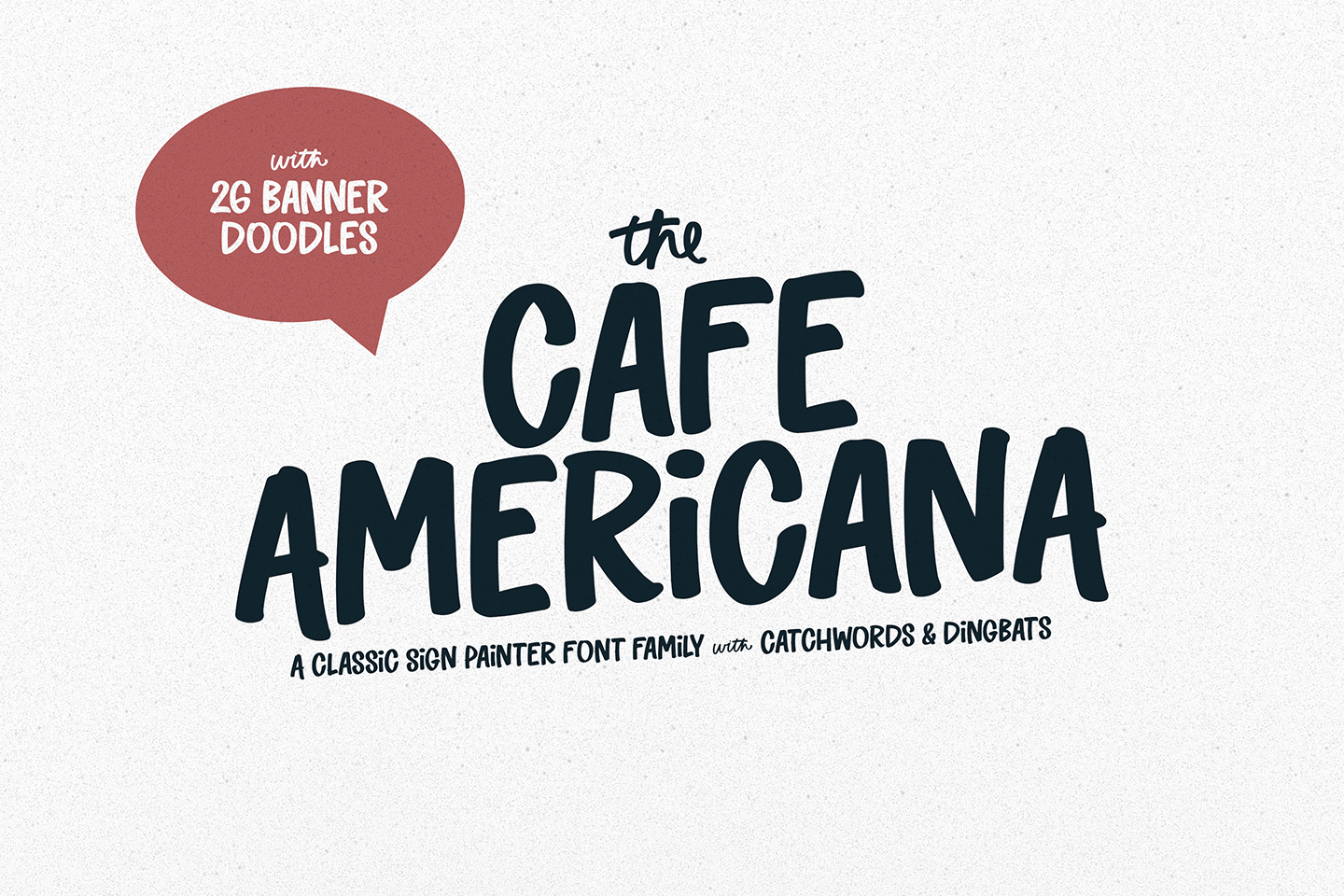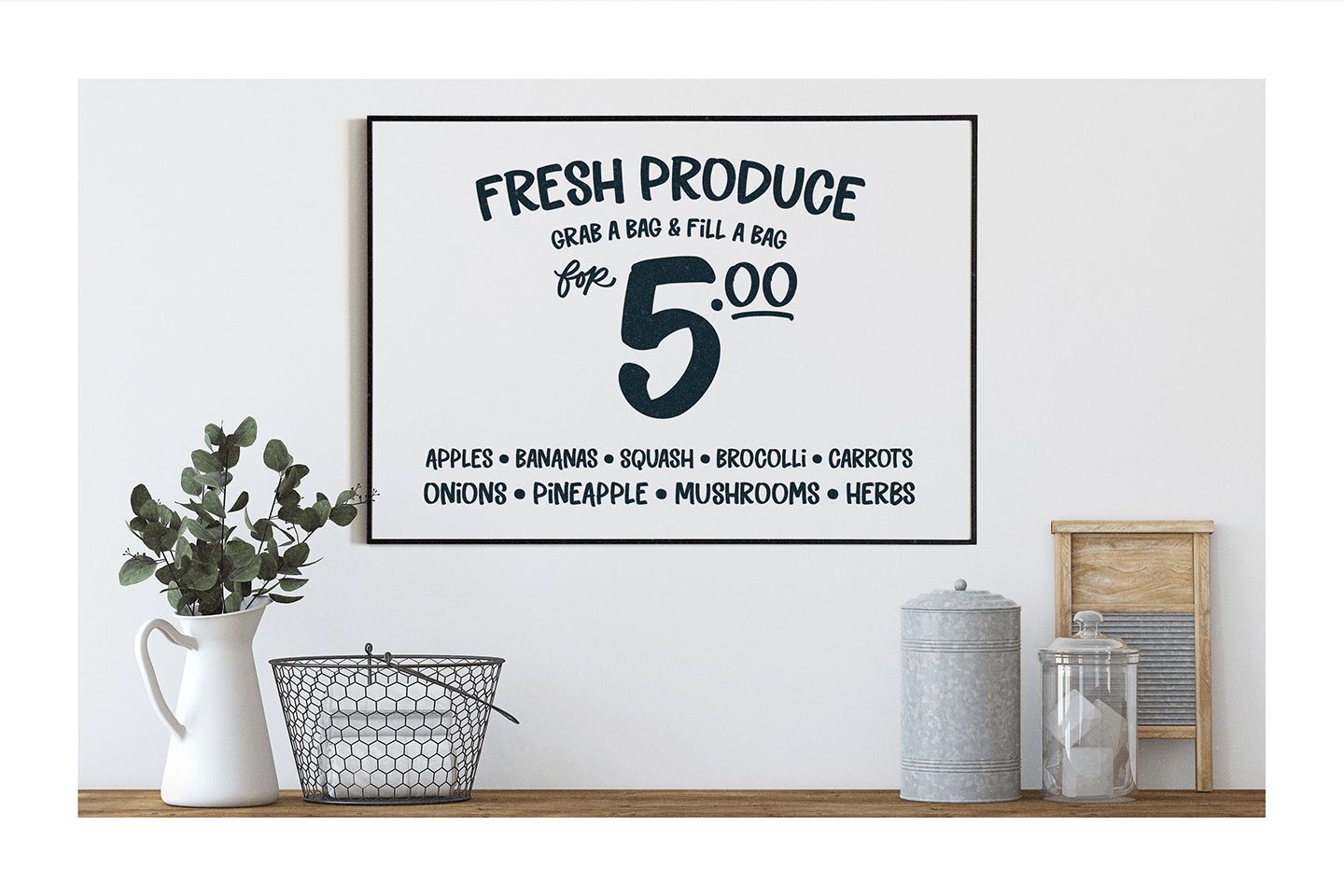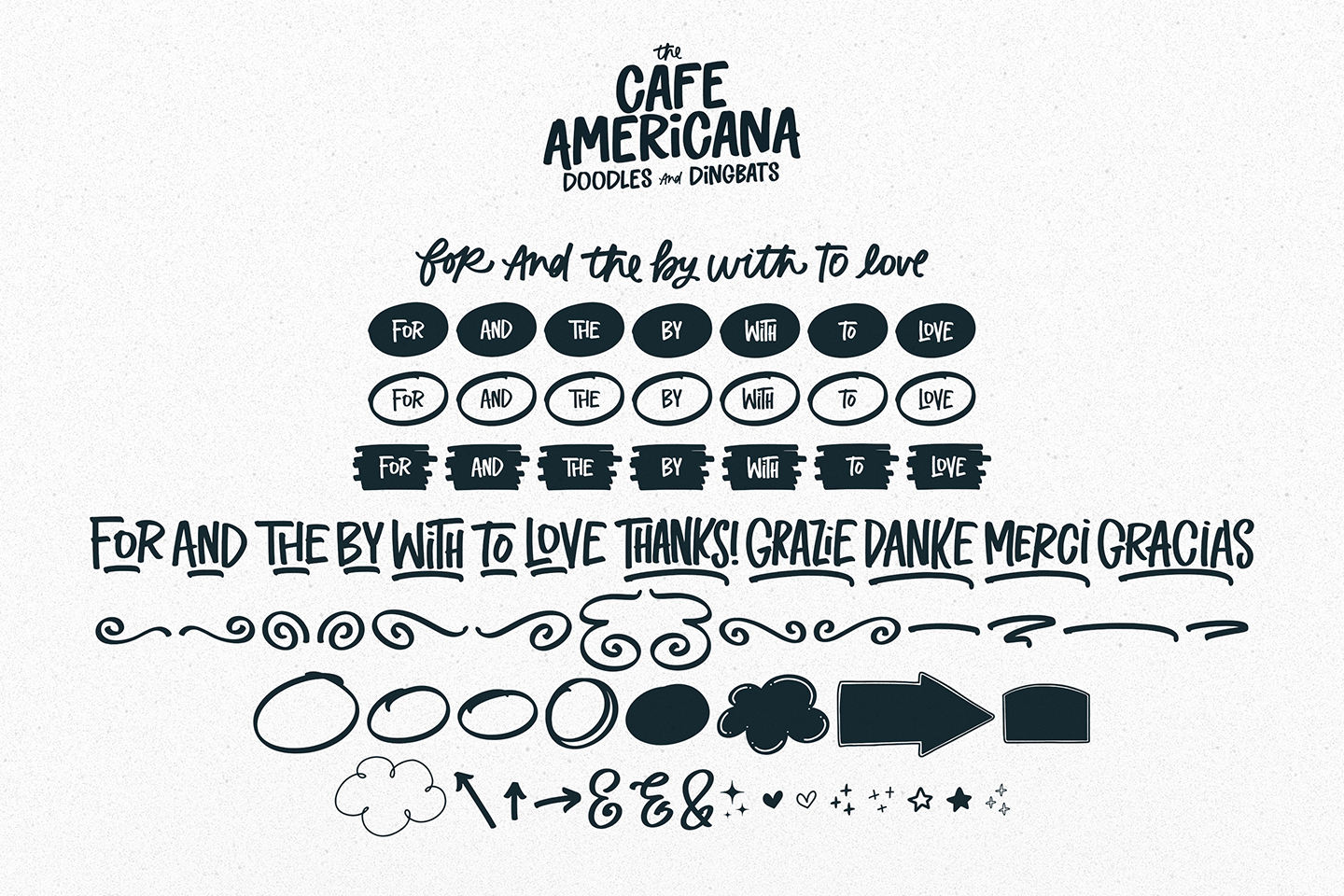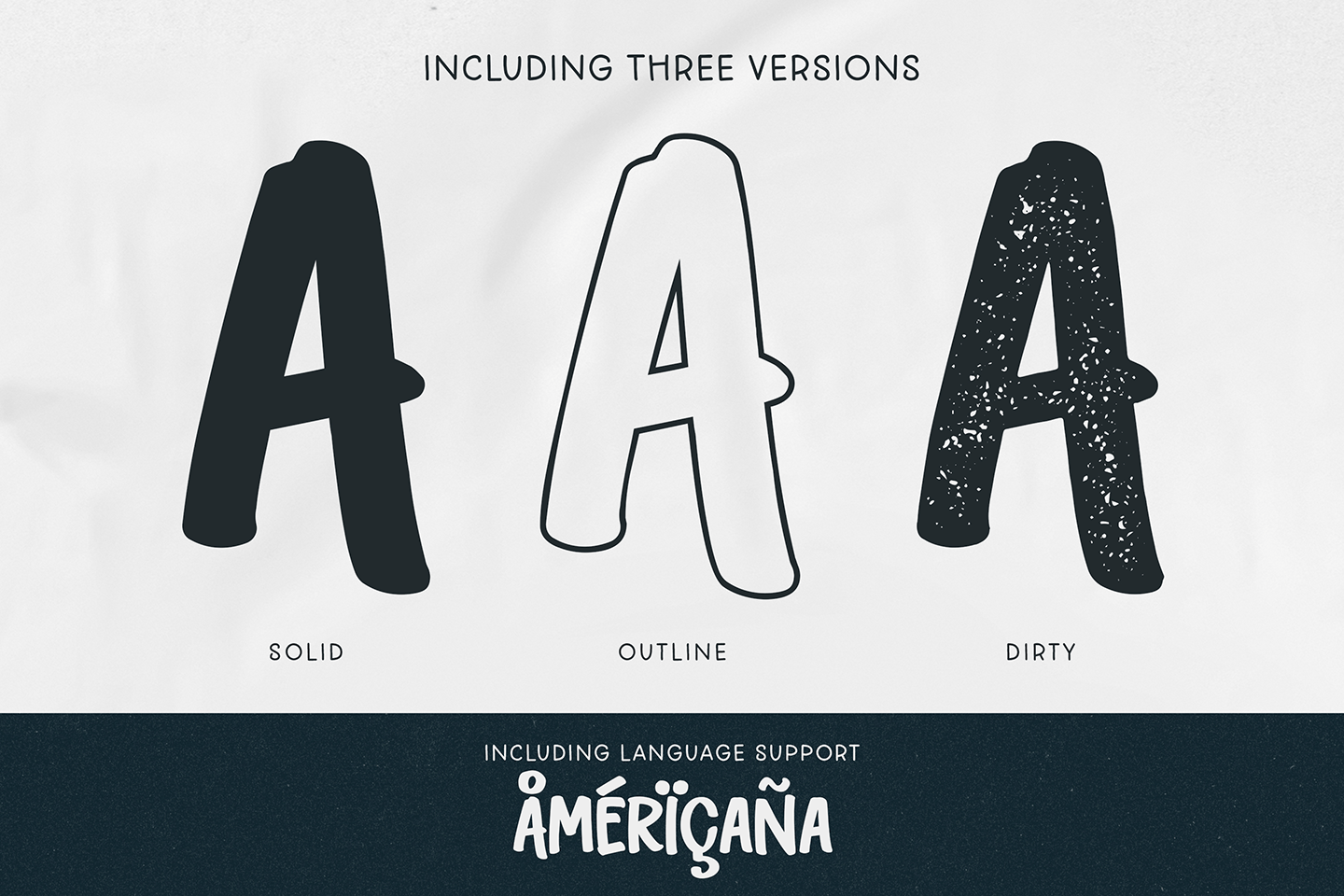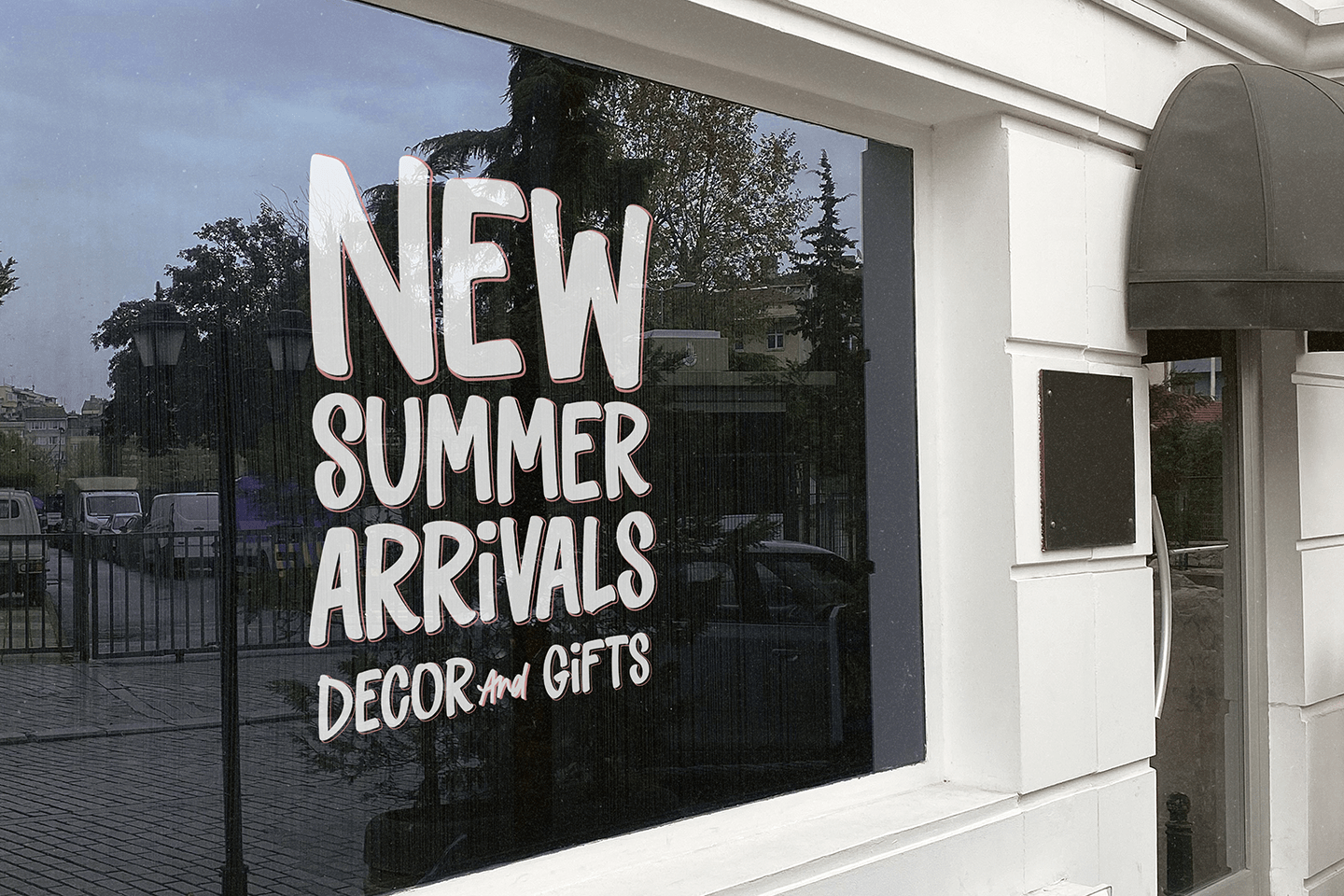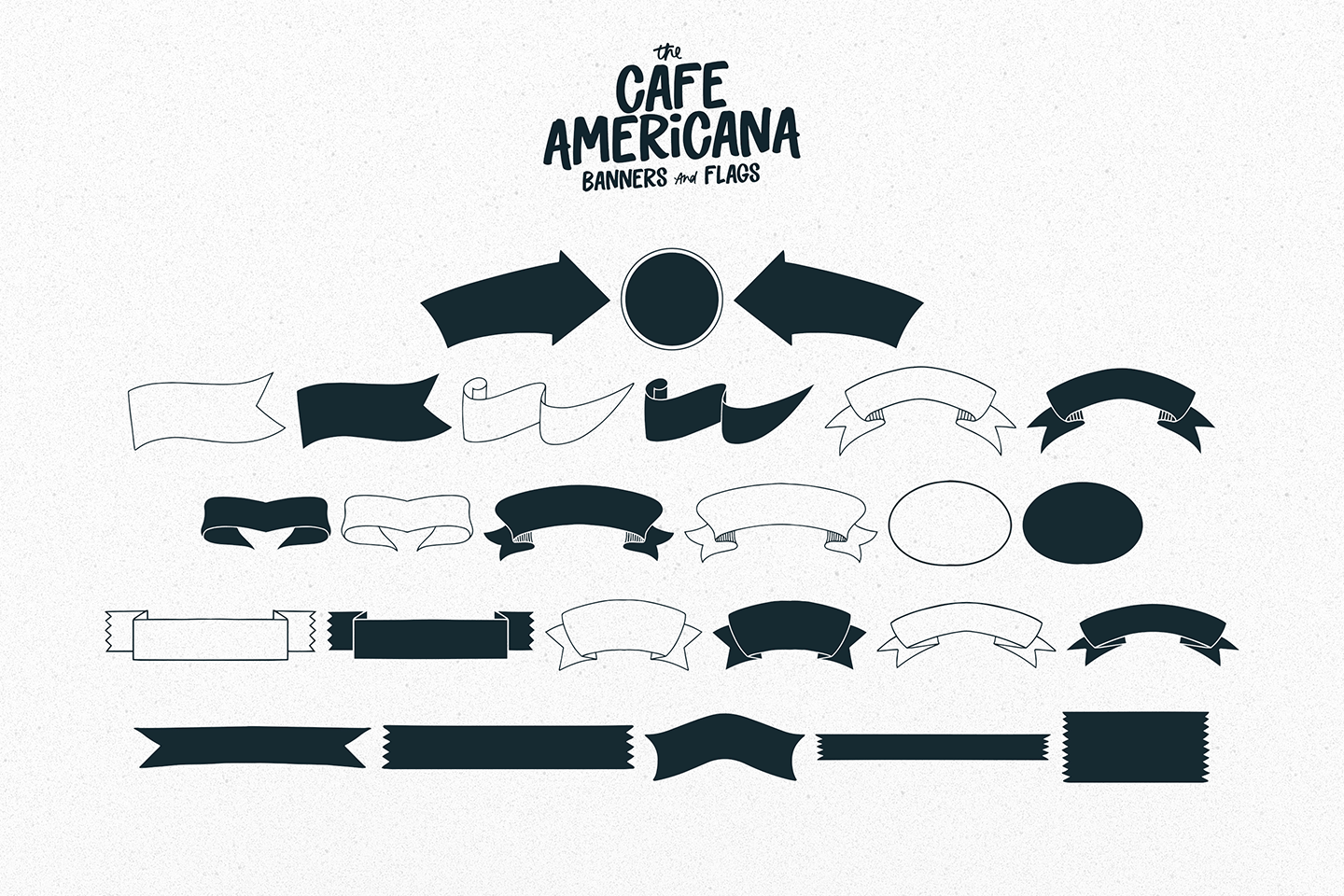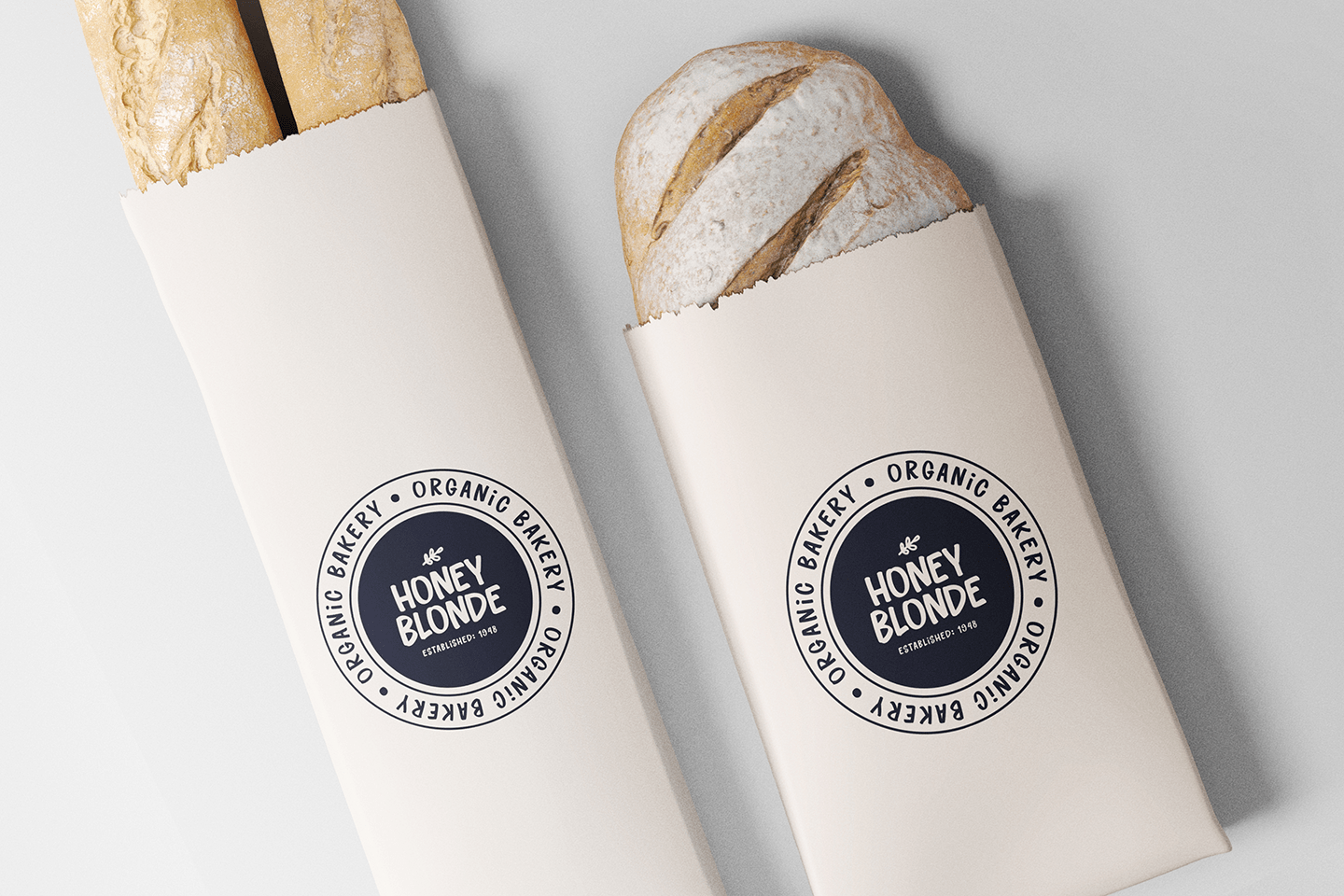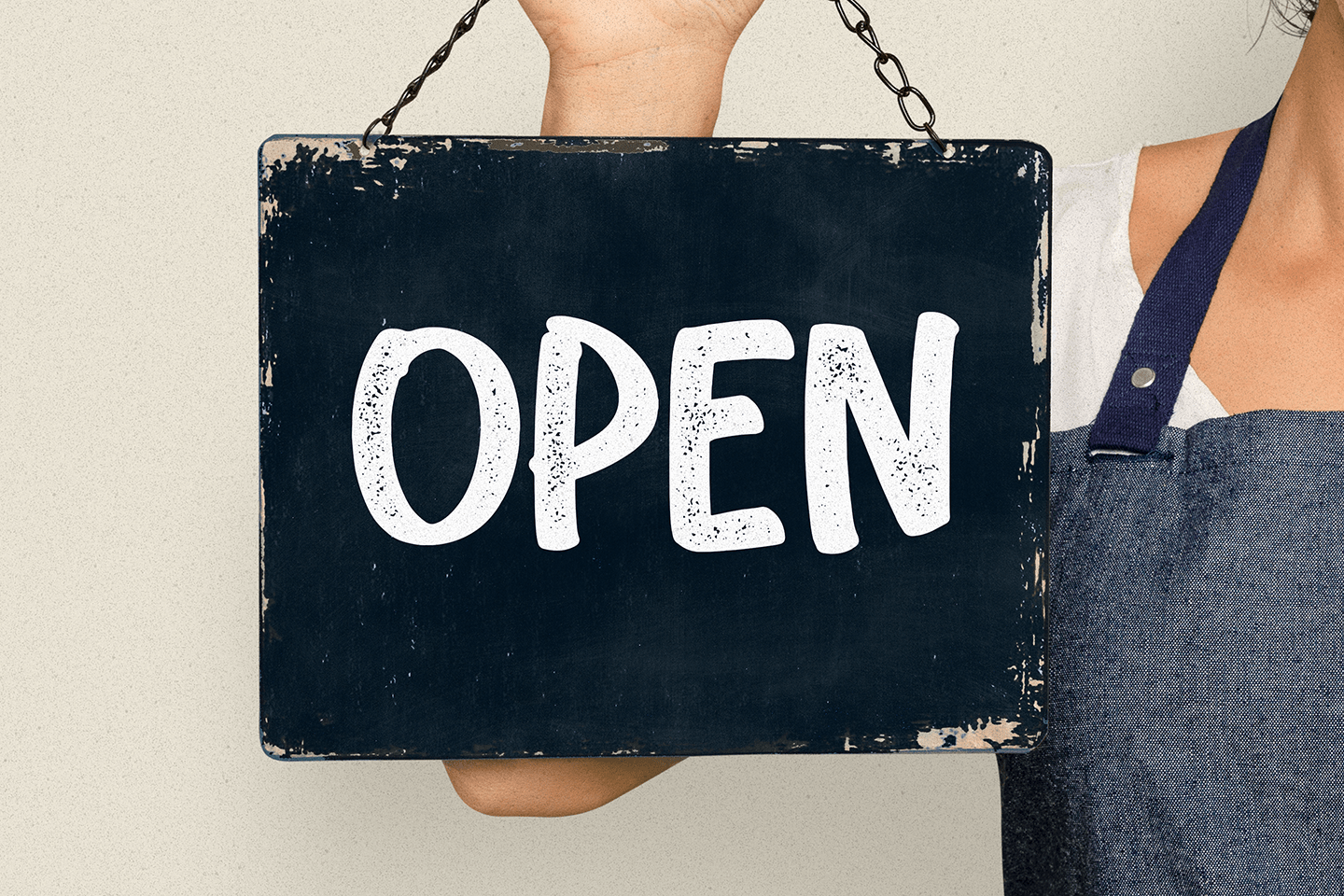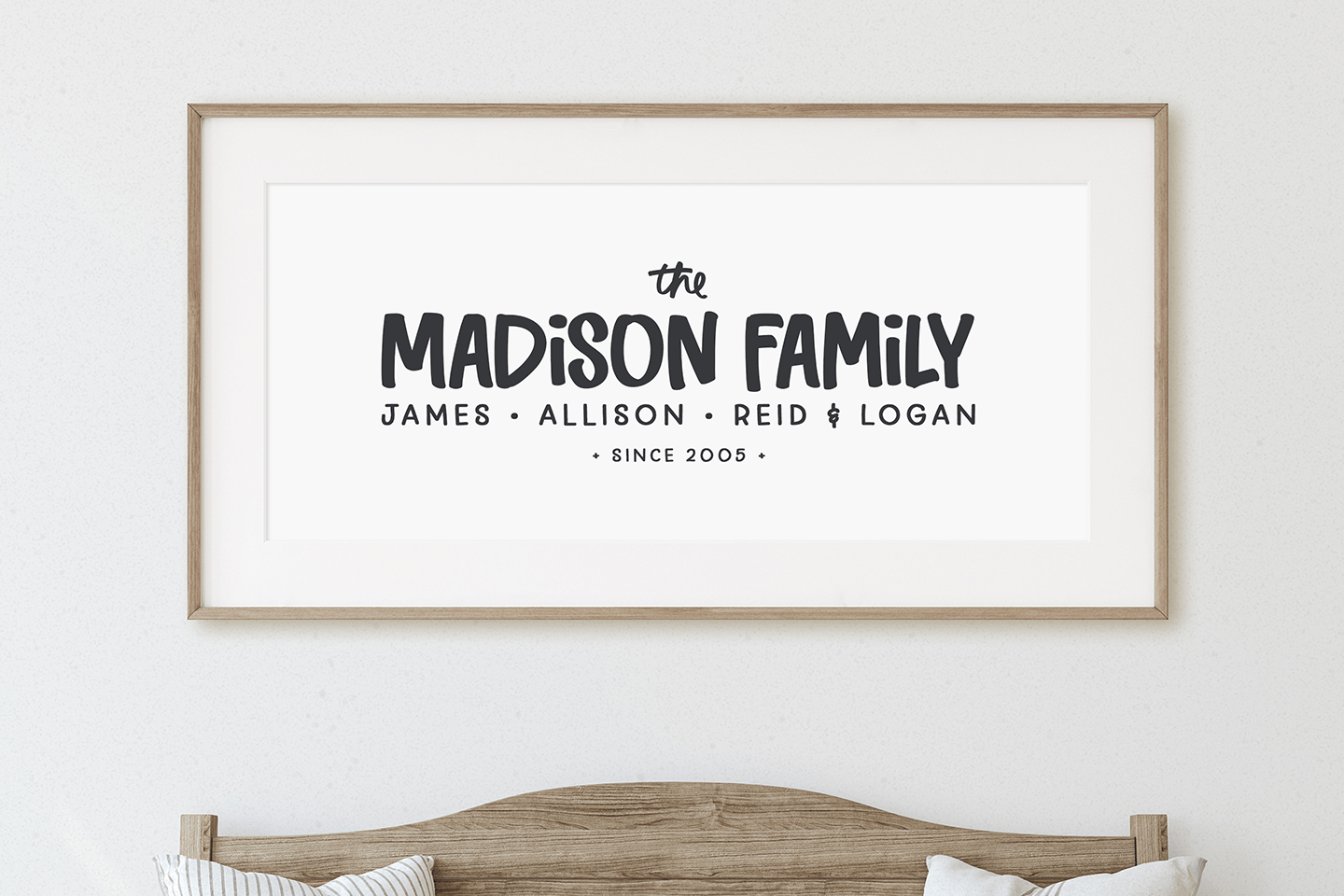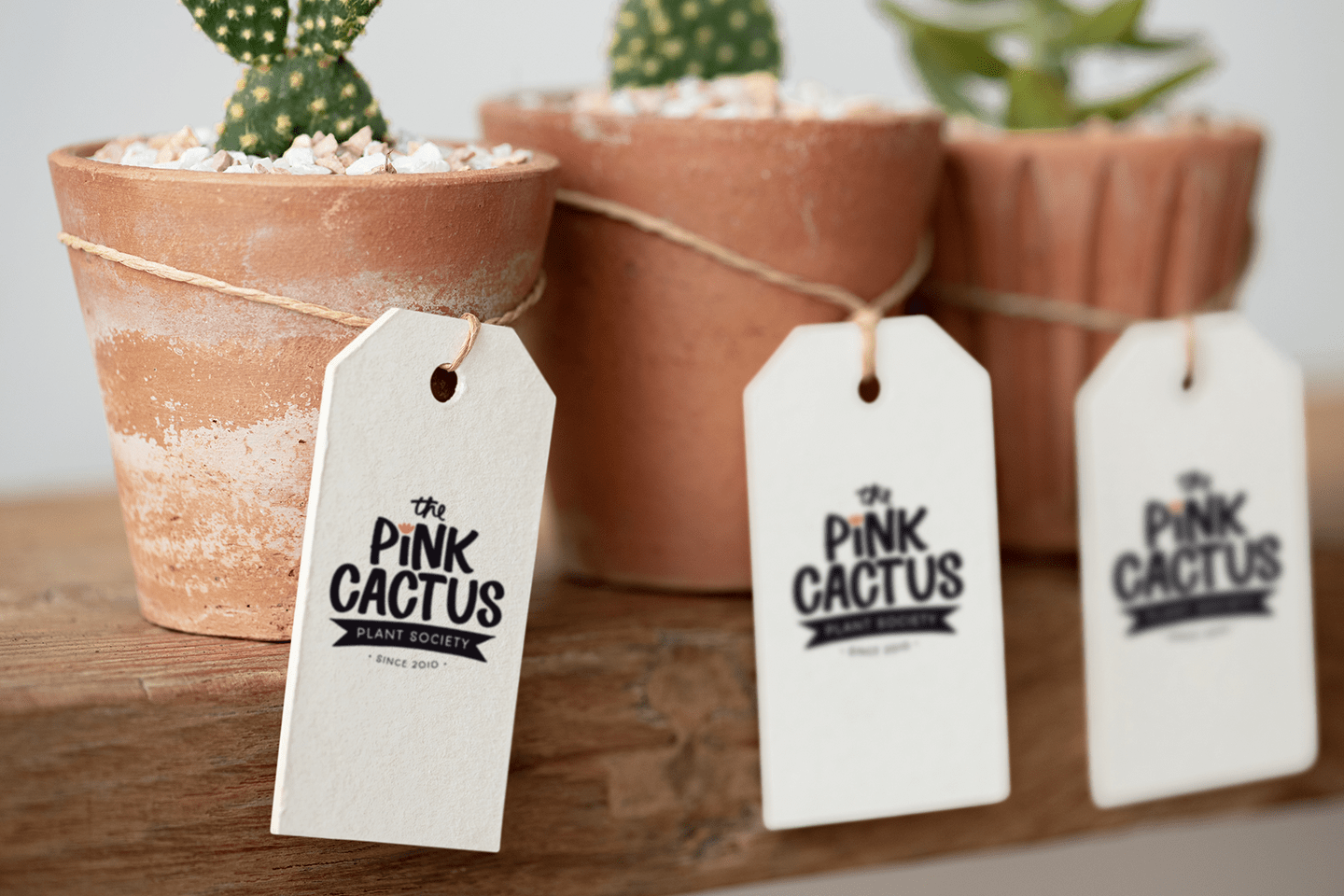
Cafe Americana
Font Family by Callie Rian & Co
Cafe Americana is a five-style display family with a hand-drawn, vintage-inspired feel that leans rustic, playful, and full of character. With Solid, Dirty, and Outline versions plus matching Banners and Dingbats, it gives you an easy way to build layered lettering and decorative layouts with a casual, Americana look.
Designed by Callie Rian & Co, this family is especially well suited to branding, greeting cards, invites, labels, posters, quotes, signage, stickers, mugs, and stamp-style designs. The mix of textured and clean options makes it useful when you want artwork that feels crafted, friendly, and a little timeworn without losing impact.
If you like display fonts that can do more than set a headline, this set offers plenty of room to experiment. Use the main styles on their own for bold statement type, or combine them with the banner and dingbat fonts to create custom badge marks, packaging graphics, and decorative compositions.